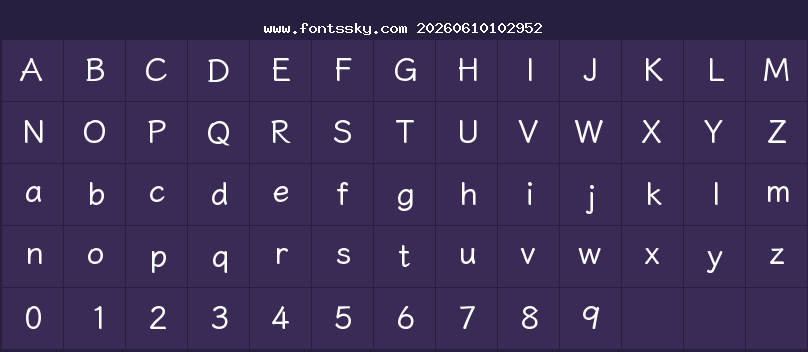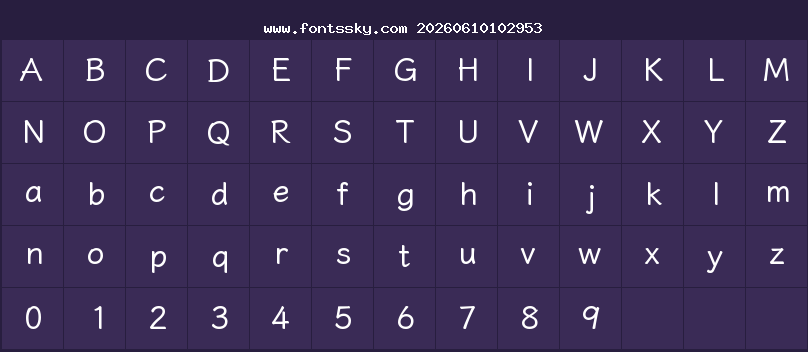
月星楷.ttc [TrueType Collection] is a modern, elegant sans-serif font designed for ultimate readability and visual harmony. Perfect for branding, headlines, web design, and print materials.